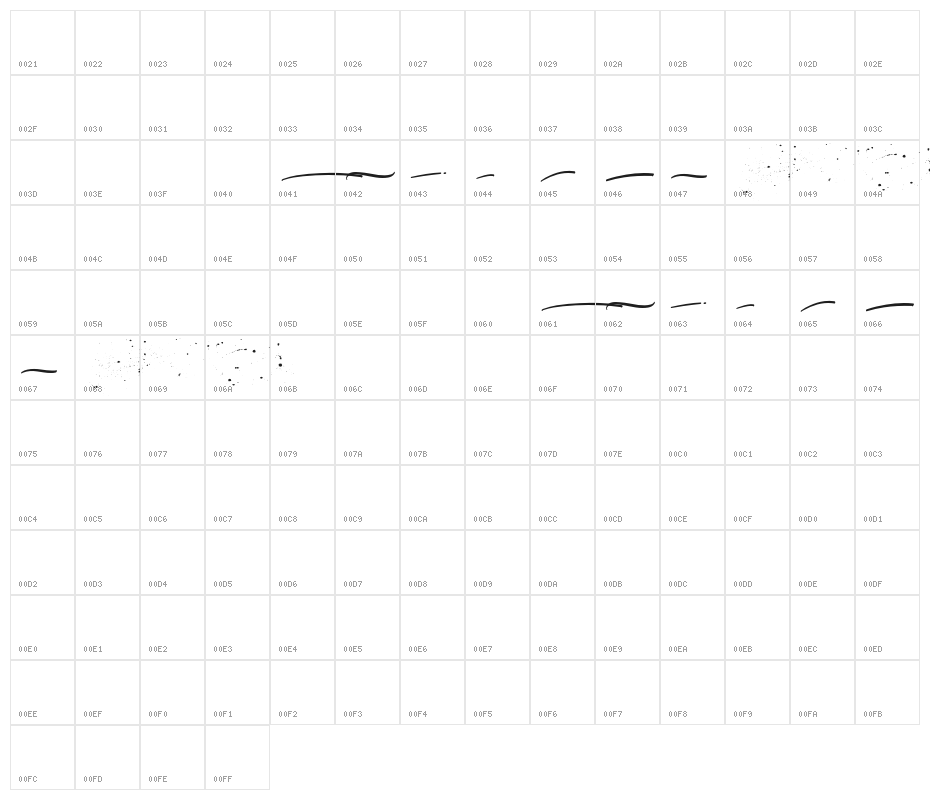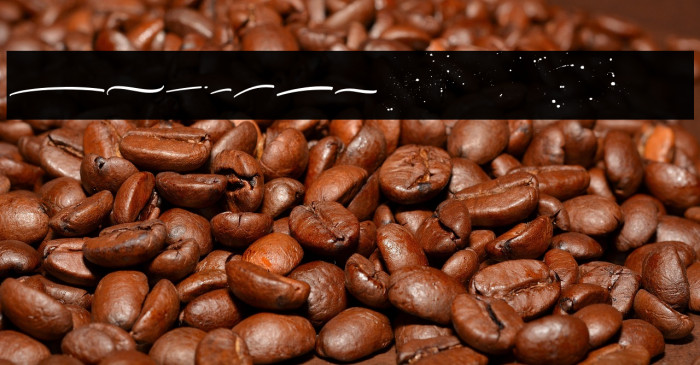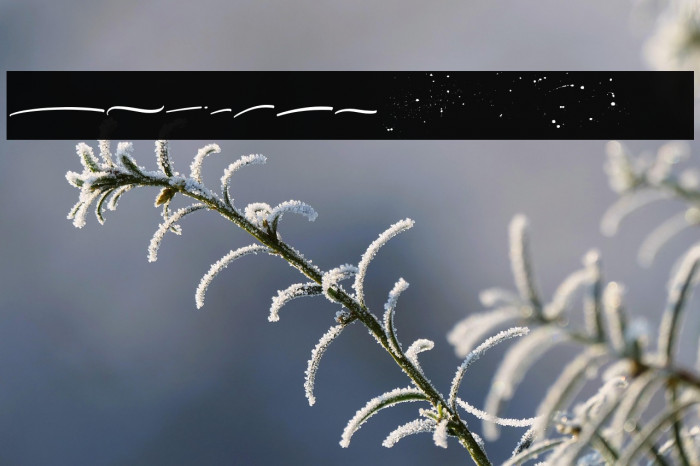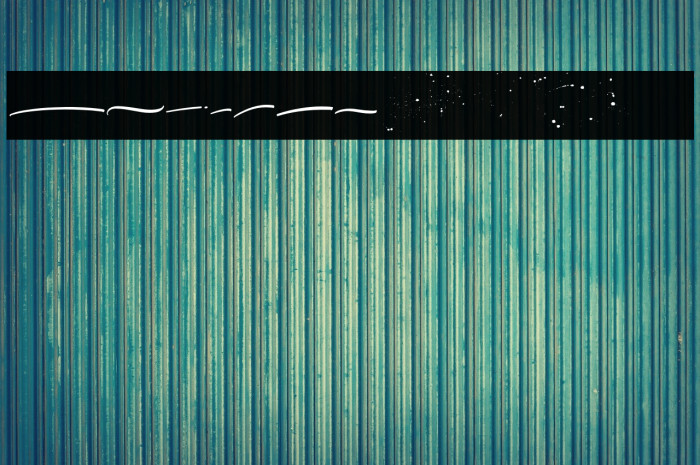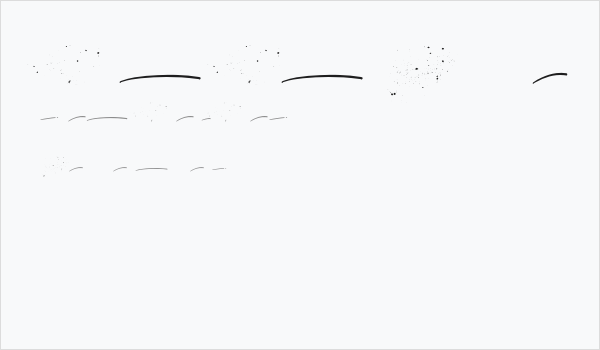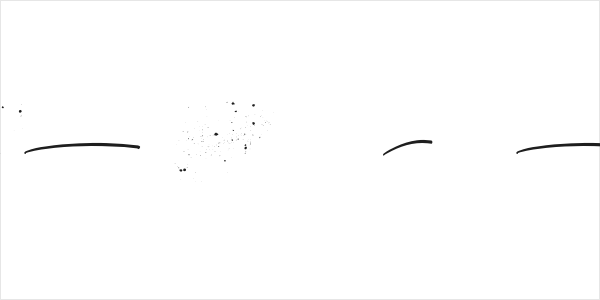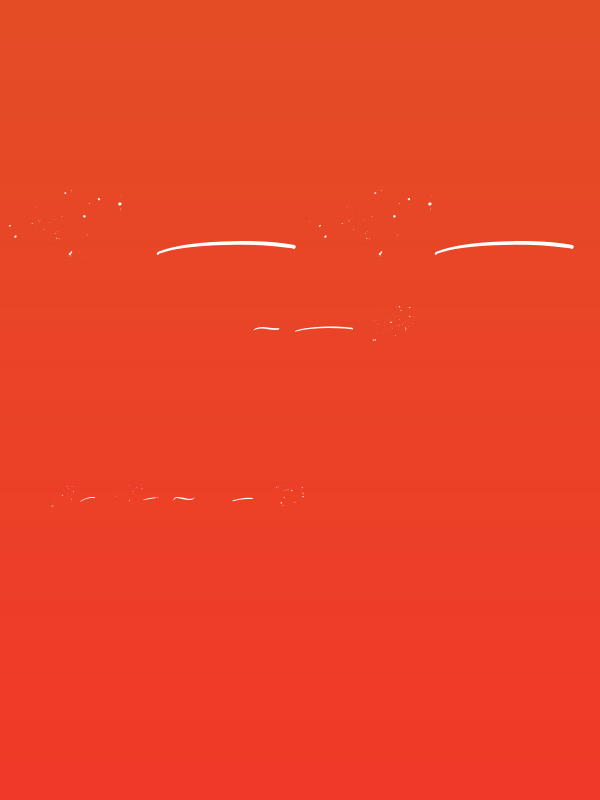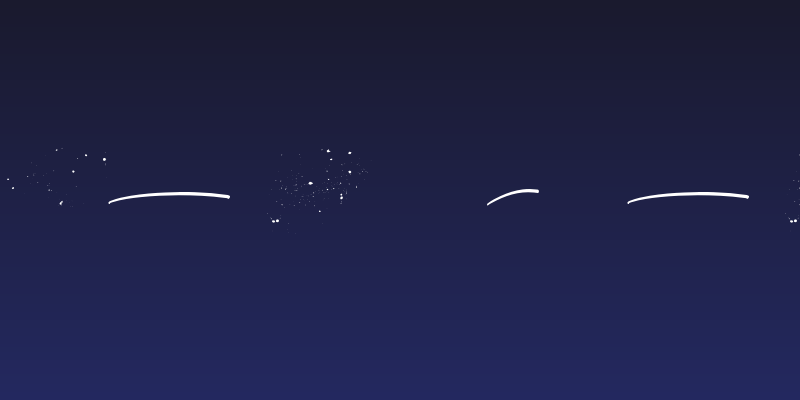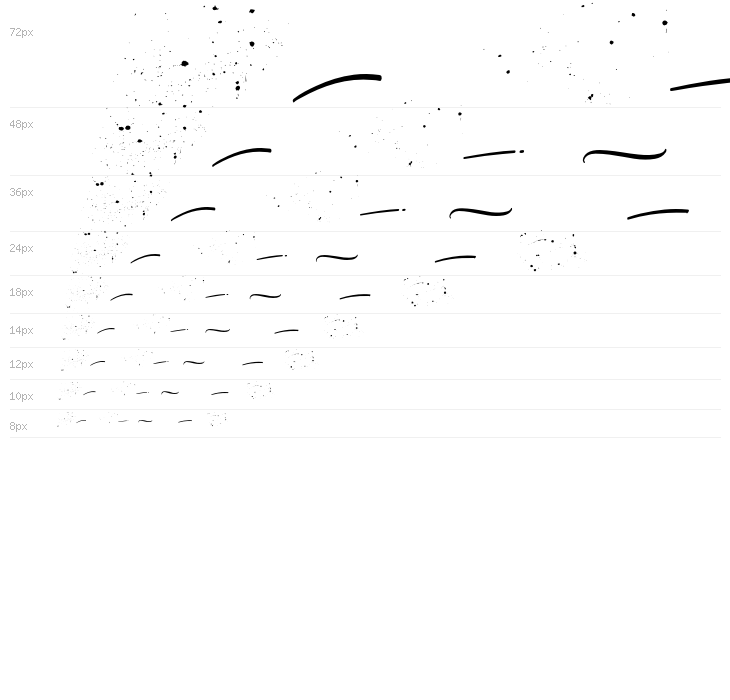
ItalianHorskeySwashDemo Font
ItalianHorskeySwashDemo Description
This font features elegant, flowing swashes that add a touch of sophistication and flair to any design. The strokes are smooth and graceful, with a calligraphic influence that is both classic and timeless. The characters are adorned with decorative flourishes, making it ideal for projects that require a touch of elegance and style. The font's overall appearance is refined, with a balance between ornate details and readability.
| Use Case | Logos, Invitations, Decorative Headlines |
| Proposed Projects | Ideal for wedding invitations, elegant branding, luxury product packaging, and decorative headlines. |